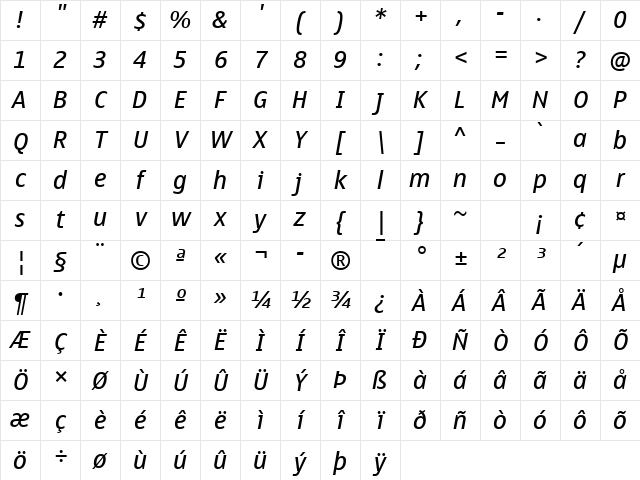
Nokia Sans Wide Italic
Foundry: Monotype Imaging Inc.
Designer: Monotype Imaging Drawing Office
Complete Nokia Sans Wide Italic glyph index. Displaying only characters natively supported by Nokia Sans Wide Italic font.
Design Context for Nokia Sans Wide
Nokia Sans Wide is a composed and adaptable typeface that performs quietly and consistently across a wide range of design contexts. The slanted form adds forward momentum and visual energy.
Pro Tip: Use Nokia Sans Wide for emphasis, pull quotes, and subheadings where its slanted energy can add rhythm to the layout.